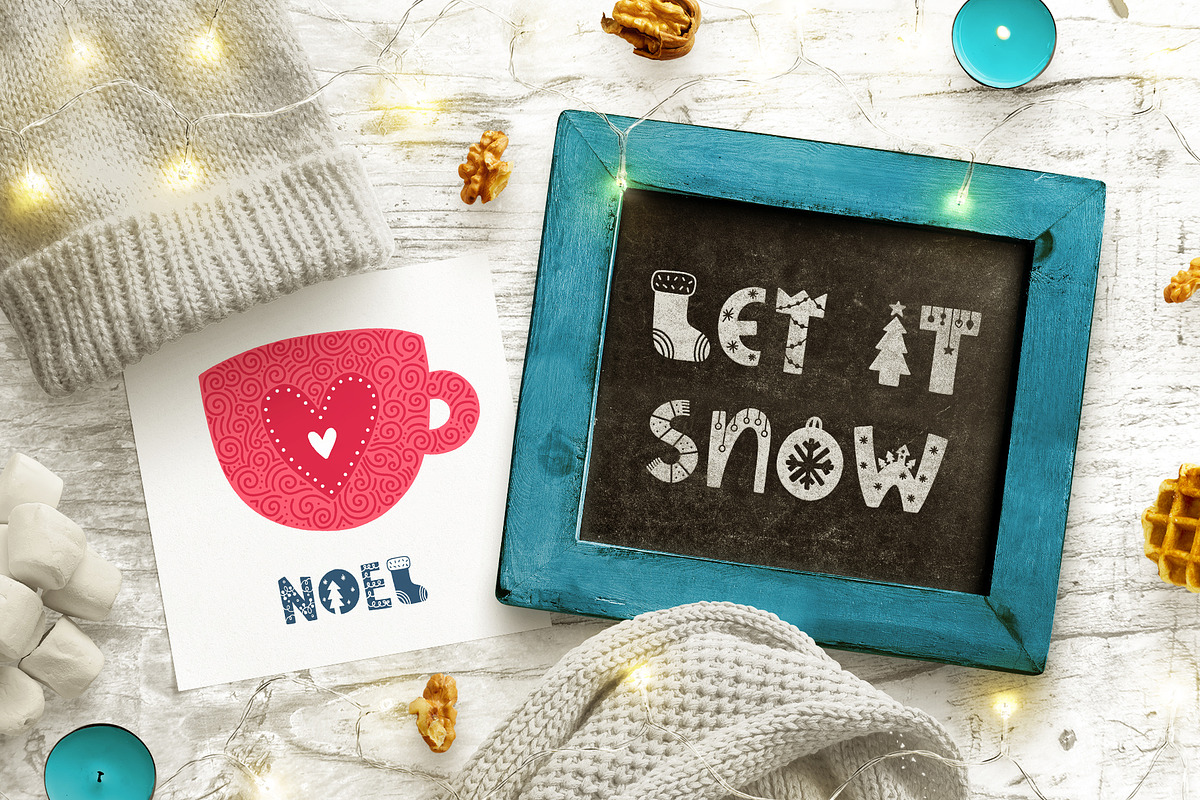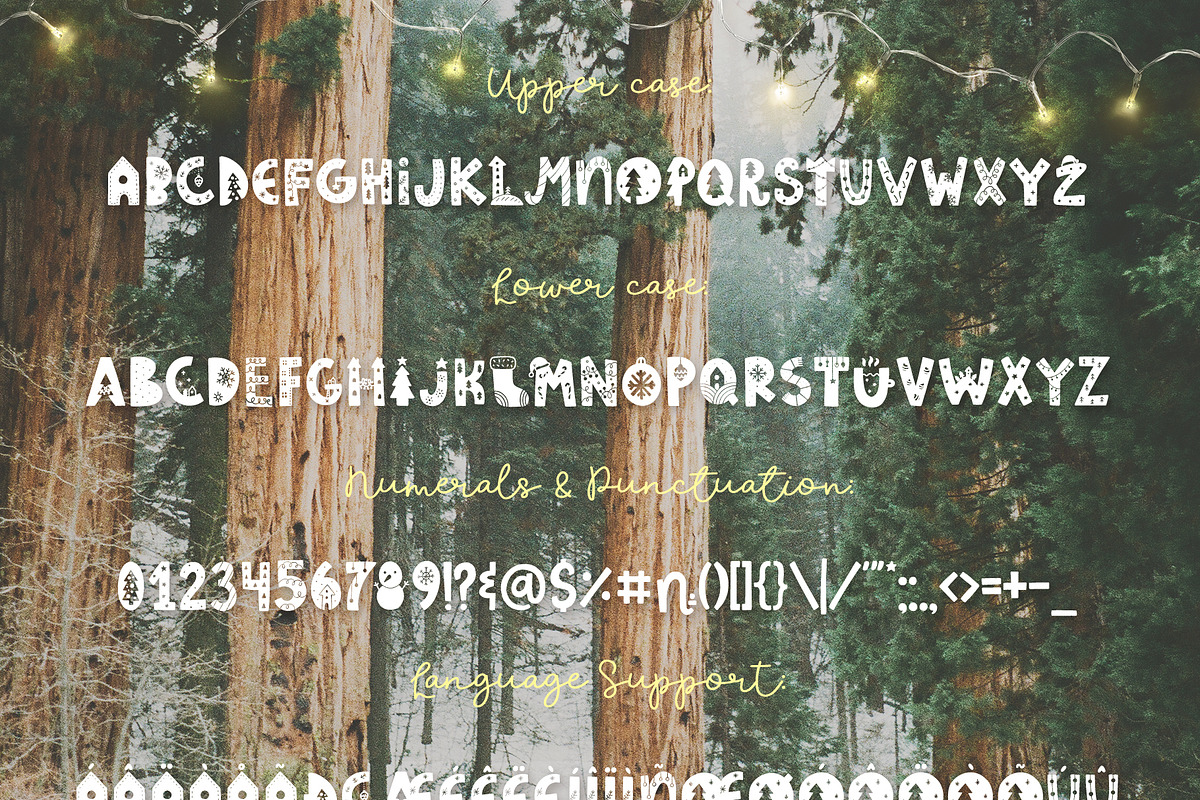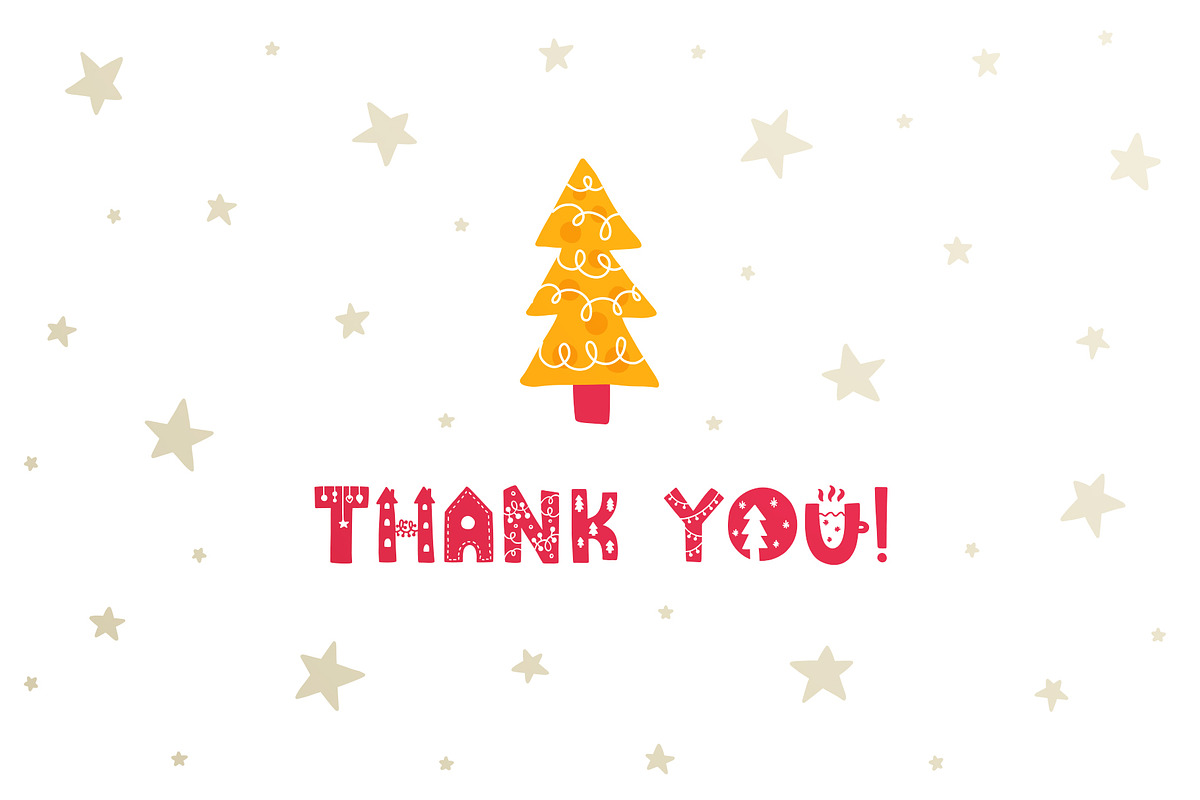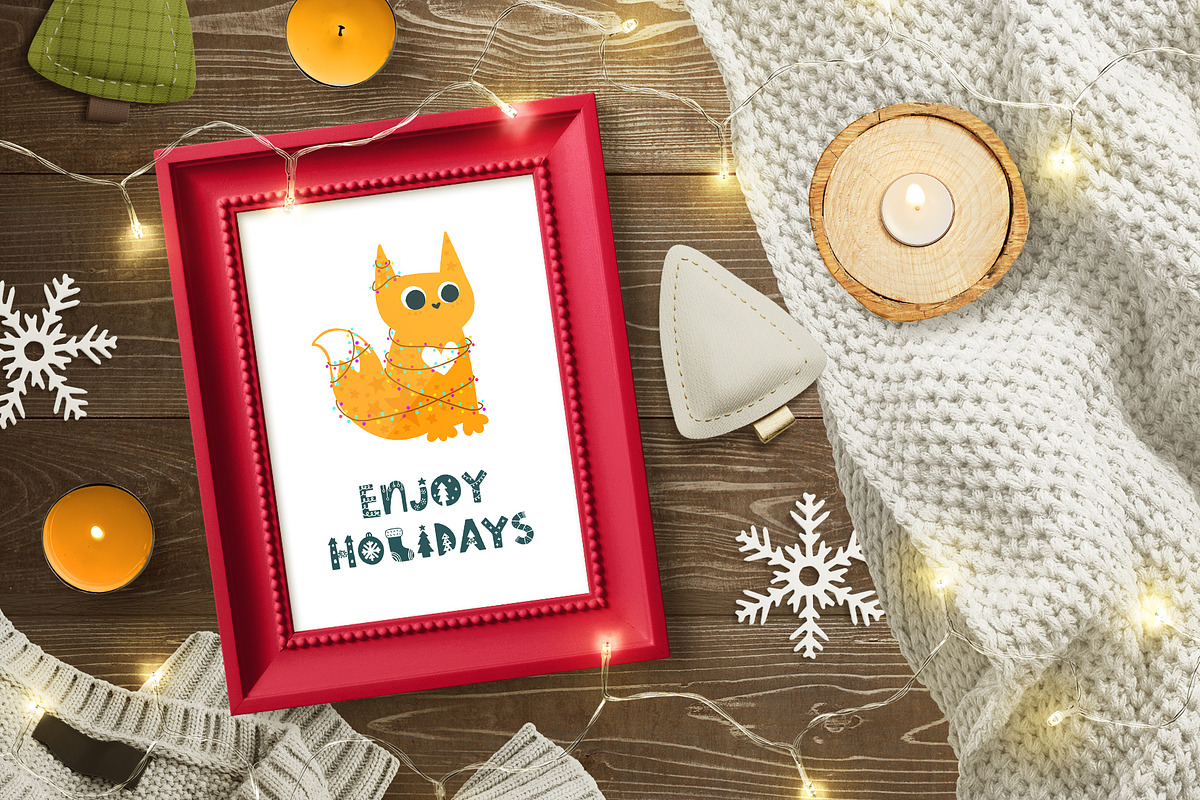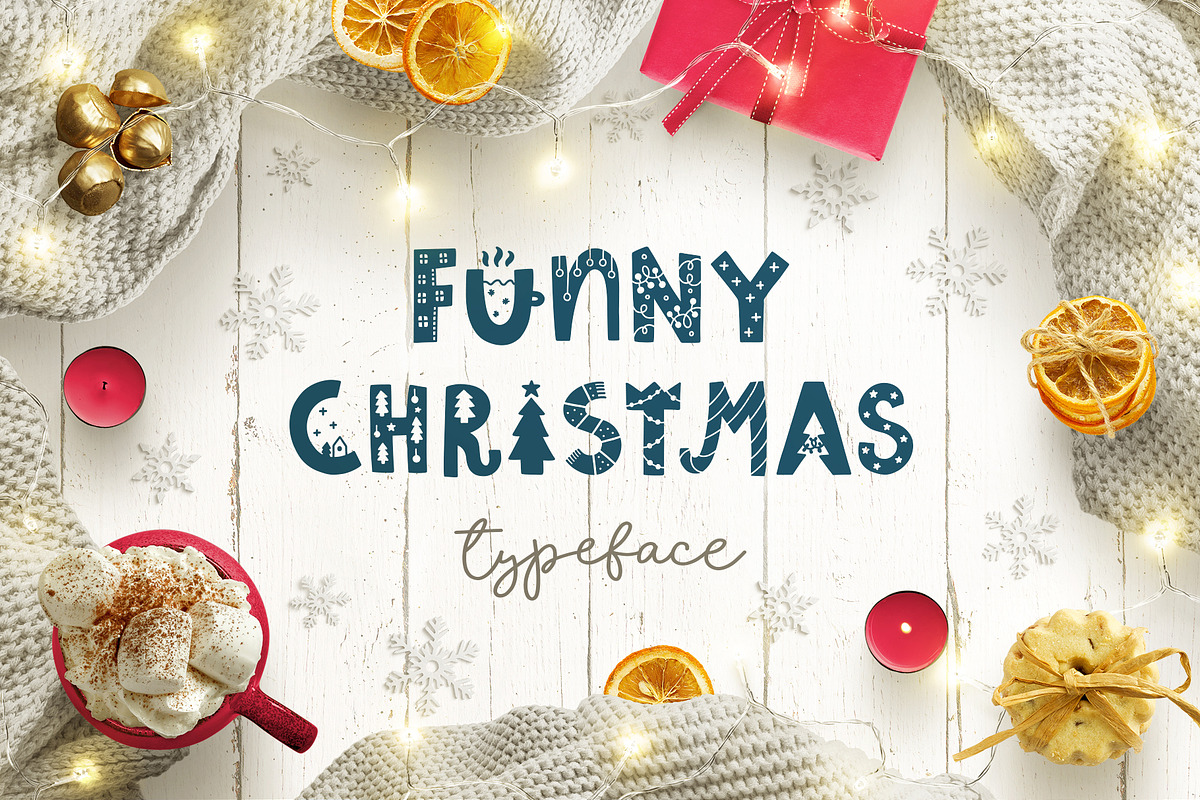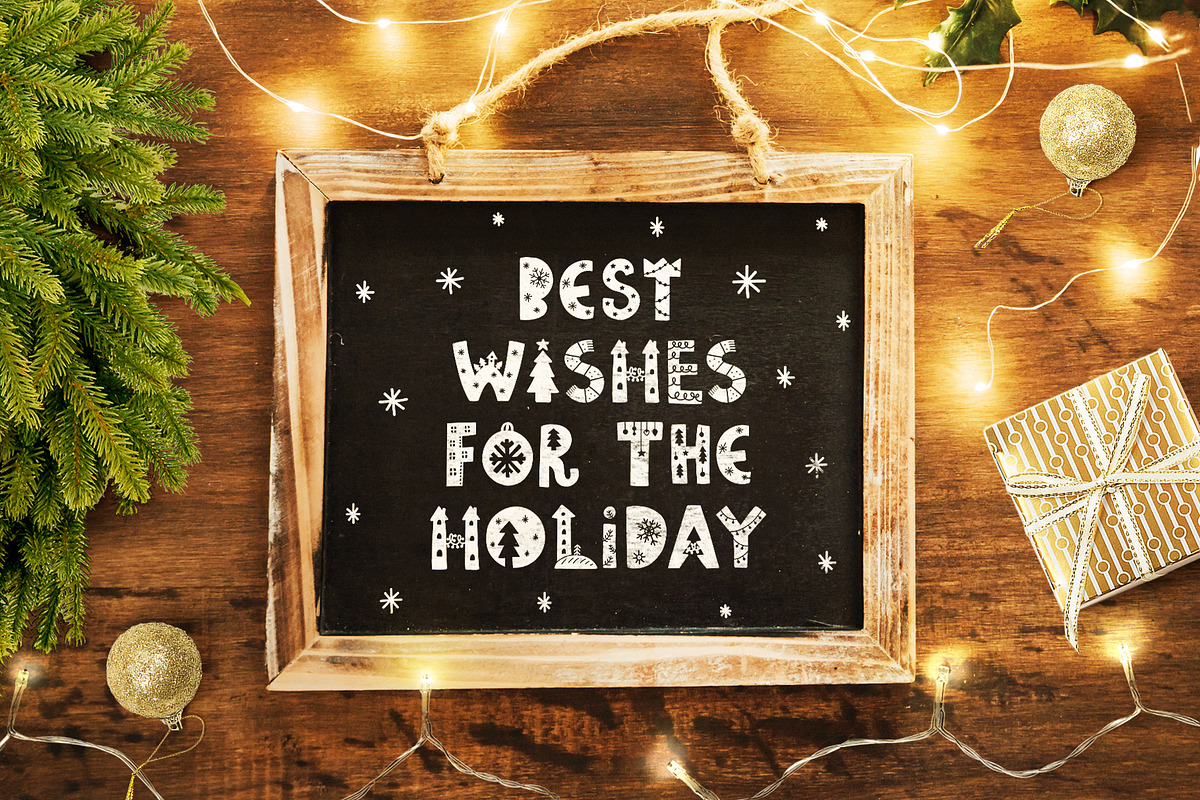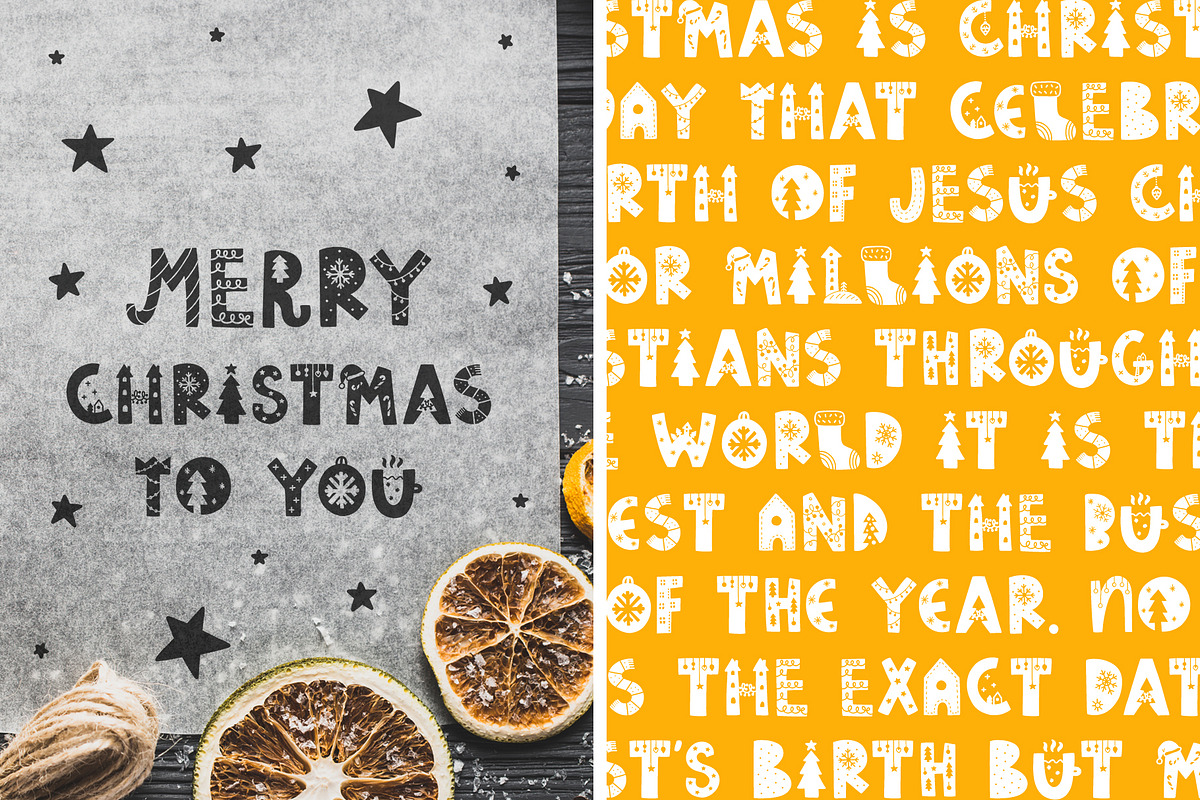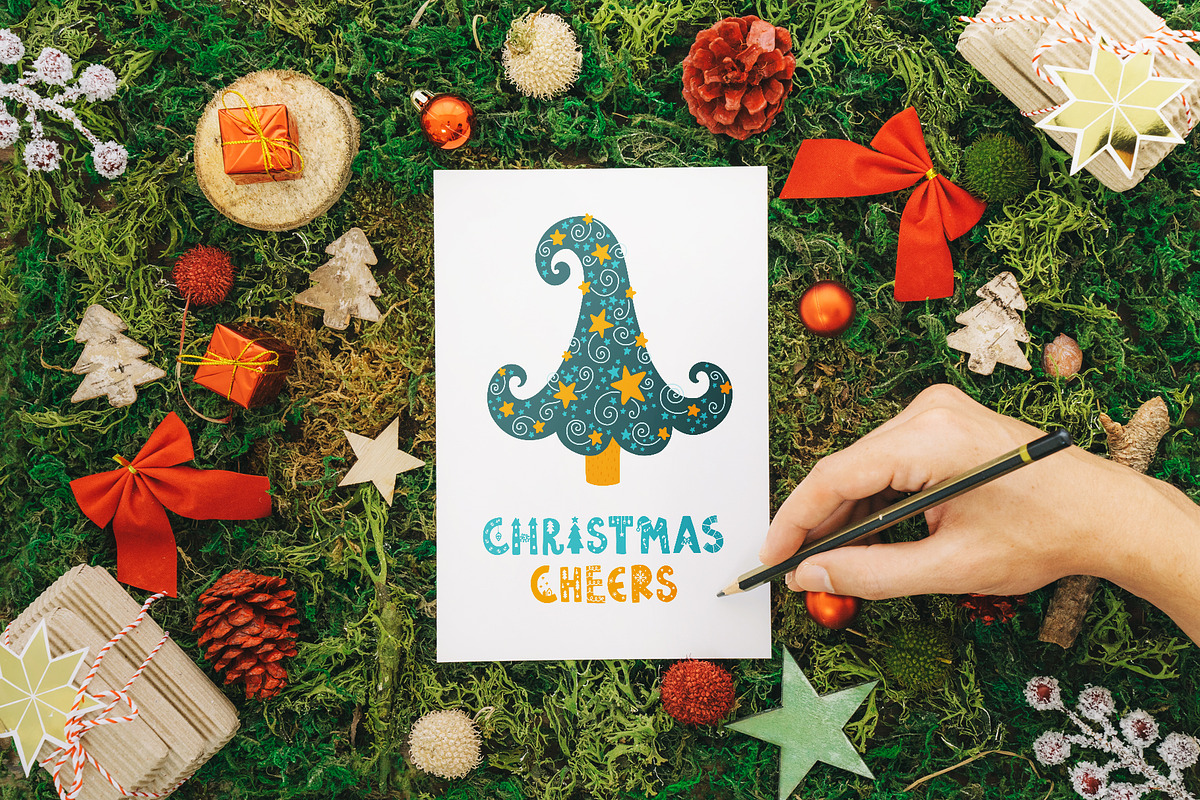
Decorative Funny Christmas Font!
Funny Christmas Typeface - decor font for your projects!
I have long wanted to create such a font! After all, Christmas is my favorite season! I think you love Christmas as much as I do! And that means you appreciate this wonderful font, which is imbued with the spirit of Christmas!
This winter font is perfect for cards, prints, invitations, arrange illustration and decoration.
It has upper and lower case letters, numbers, special characters and accents, alternates and ligatures.
Font include multilingual support. Please watch the preview where all the letters are shown.